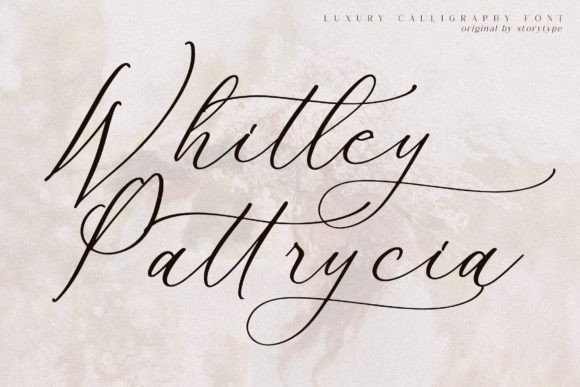
Journey into the realm of elegance and sophistication with Whitley Pattrycia Font, a script font that embodies the essence of luxury and grace. Its meticulously crafted characters dance across your screen, leaving a trail of visual enchantment.
Dive into a world of creative possibilities with Whitley Pattrycia. Whether you're designing an elegant logo, crafting a captivating book or movie title, or adding a touch of flair to your fashion brand, this font is your perfect companion. Its versatility extends to magazines, clothing, lettering, and quotes, transforming your words into works of art.
Unlock a treasure trove of typographic wonders with Whitley Pattrycia. This font is PUA encoded, granting you effortless access to a vast array of glyphs and swashes. Unleash your creativity and let your imagination run wild as you explore the endless possibilities that await.
With Whitley Pattrycia, your designs will exude an aura of exclusivity and refinement. Its unique style and modern look will captivate your audience, leaving a lasting impression that whispers of sophistication and timeless beauty.
Welcome to a world where typography meets art, where letters are transformed into visual masterpieces. Whitley Pattrycia Font awaits you, ready to elevate your designs to new heights of elegance and splendor. Embrace the beauty and let your creativity flourish.